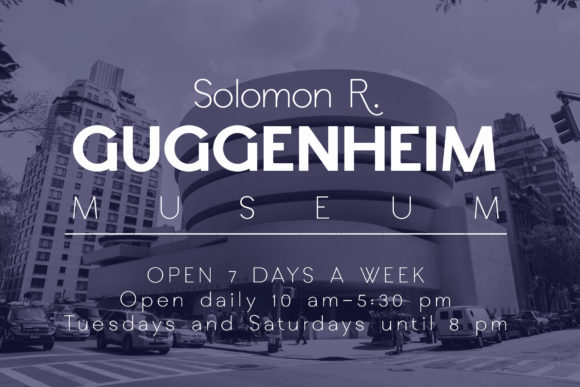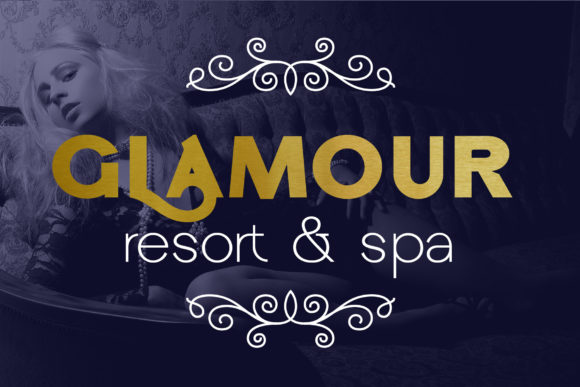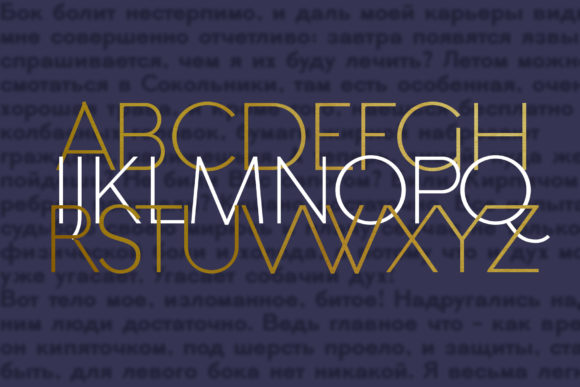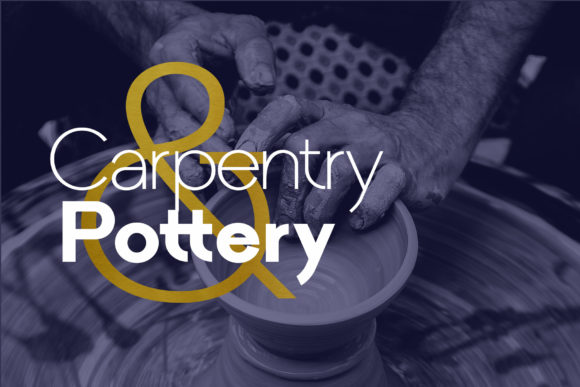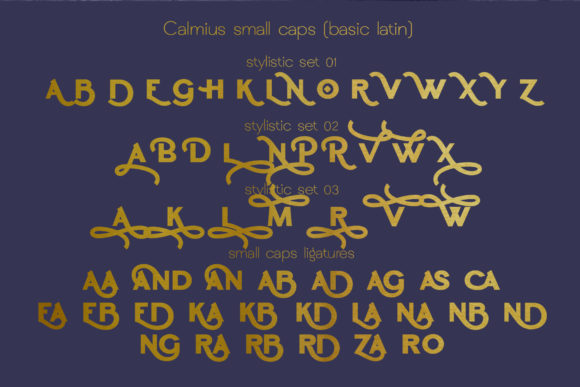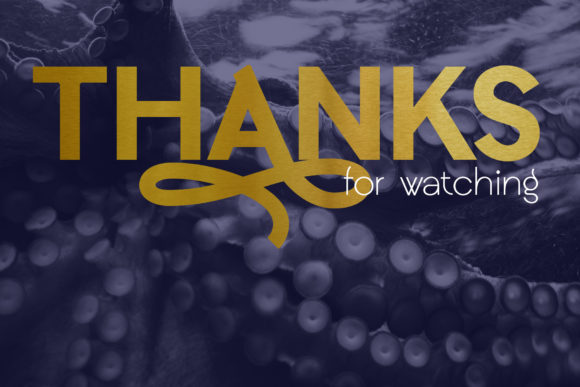
Designing with Calm and Elegance
As a designer, you know the thrill of creating something from scratch. You’re brainstorming ideas for a new project, and suddenly, a spark of inspiration hits – the perfect font to elevate your design. For me, that moment happened when I stumbled upon the Calmius Font. Its sleek, modern aesthetic instantly captured my attention, and I knew I had to learn more.
The Calmius Font is a versatile sans-serif font designed to bring calmness and elegance to any design project. Suitable for branding, product packaging, invitations, and more, this font is a valuable addition to any designer’s toolkit. Its clean lines and sophisticated feel make it an ideal choice for creating professional-looking designs that exude sophistication and refinement.
With the Calmius Font, designers can create stunning visuals that communicate their message effectively. Its versatility and elegance make it a must-have for any design project, from logos to posters, and everything in between.
Calmius Font Key Features
- Unique Characteristics: The font features a unique blend of modern and traditional elements, with a clean and elegant design that makes it suitable for various applications, including body text, titles, and headings.
- Font Weight: The font is available in multiple weights, including Light, Regular, Medium, Bold, and Black, allowing users to choose the perfect weight for their design needs.
Calmius Font Review
As a designer, I was excited to dive into the world of Calmius Font, and I must say, it’s an interesting mix of modern and classic elements. ✨
- Unique Letterforms: Calmius Font features some unique letterforms that add a touch of elegance to any design.
- High Contrast: The font has a good balance of thick and thin lines, making it perfect for creating high-contrast designs.
- Multi-Lingual Support: Calmius Font supports multiple languages, making it a great option for global brands and publications.
However, there are some limitations that designers should be aware of: ⚠️
- Limited Weight Options: Calmius Font has a limited range of weights, which may not be suitable for complex designs that require multiple font weights.
- Not Ideal for Small Text: The font’s letterforms can become difficult to read at small sizes, making it less suitable for body text or small print.
Overall, Calmius Font is a solid choice for designers who want to add a touch of sophistication to their designs. While it has its limitations, the unique letterforms and high contrast make it a great option for logos, headings, and titles.
Some tips for getting the most out of Calmius Font include:
– Using it for headings and titles to add a touch of elegance.
– Pairing it with other fonts to create a unique and sophisticated look.
– Using it in designs that require a calm and serene atmosphere.
– Some common use cases include:
– Wedding invitations and stationery.
– Luxury branding and packaging.
– Calming and relaxing digital content.
Alternatives to Calmius Font for Designers
Lato is a modern sans-serif font that is highly legible and versatile. It is suitable for body text, headings, and even logos. Lato is a great alternative to Calmius Font when you need a clean and sophisticated look. Compared to Calmius Font, Lato is more modern and has a wider range of weights and styles.
Open Sans is a clean and modern sans-serif font that is highly legible and versatile. It is suitable for body text, headings, and even logos. Open Sans is a great alternative to Calmius Font when you need a friendly and approachable look. Compared to Calmius Font, Open Sans is more approachable and has a wider range of weights and styles.